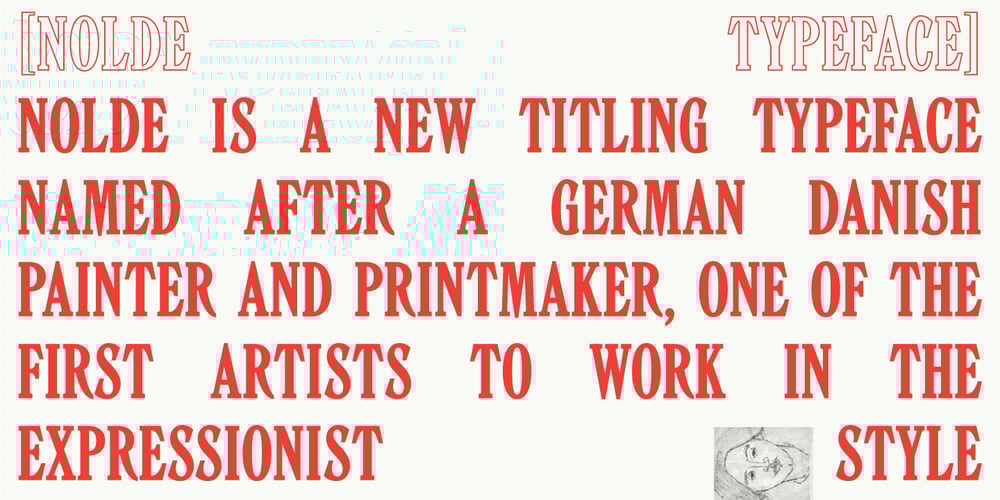
Nolde Font Family was designed by Gayaneh Bagdasaryan, Vyacheslav Kirilenko and published by Brownfox. Nolde contains 2 styles and family package options. Nolde is a new titling typeface named after the German-Danish painter and printmaker Emil Nolde, one of the first artists to work in the Expressionist style. Not unlike the work of Nolde the artist, the seemingly rhythmical characters of Nolde the typeface conceal expressive tension of form and nervous line quality. While its letterforms hearken to the early-20th c. foundry types, this font makes a fresh and decidedly current impression, making it suitable for cutting-edge display use. Nolde capitals are available in two weights: regular and outline, and support over 60 languages that employ Latin and Cyrillic scripts.